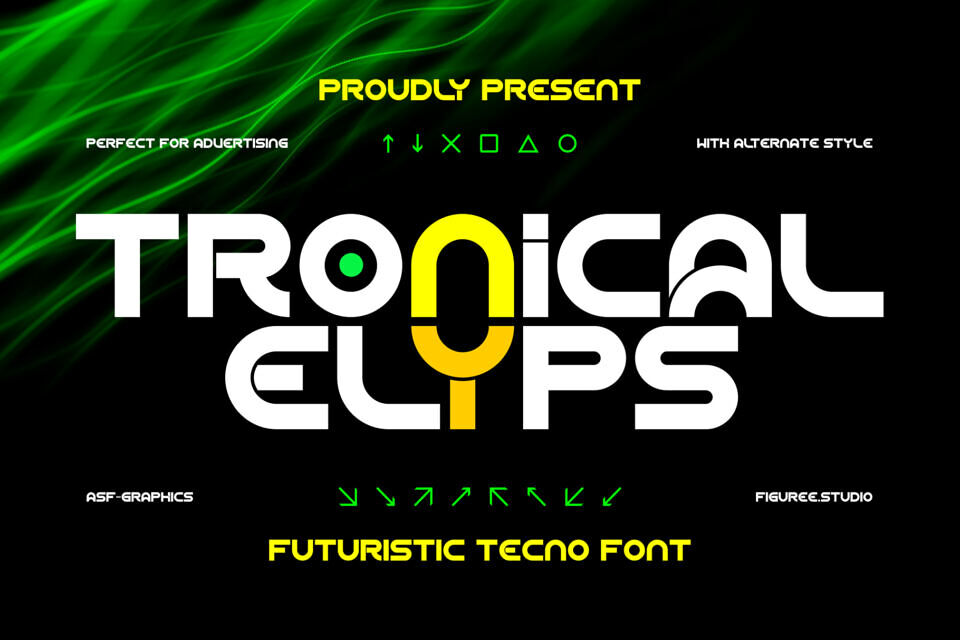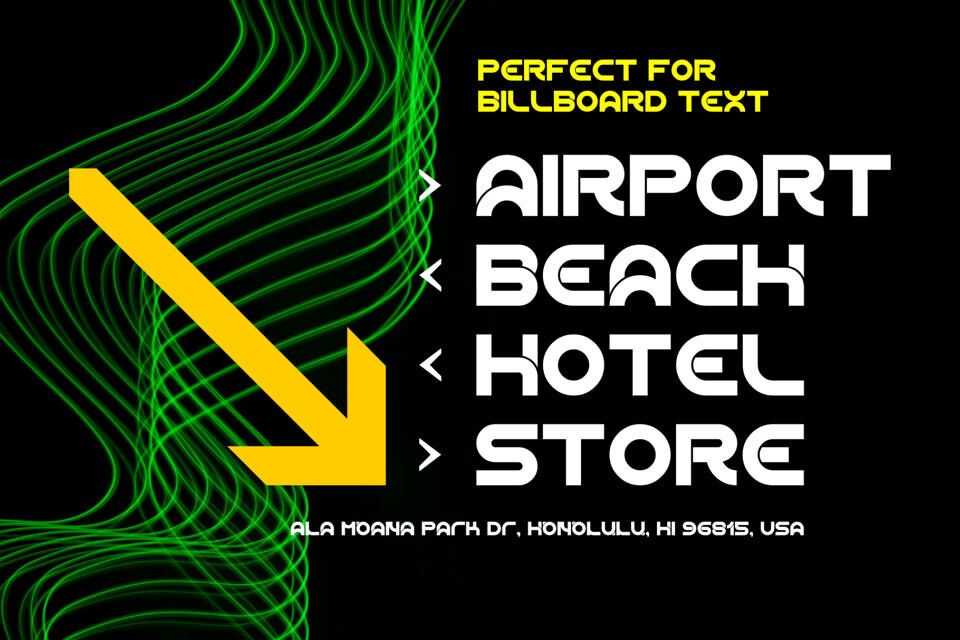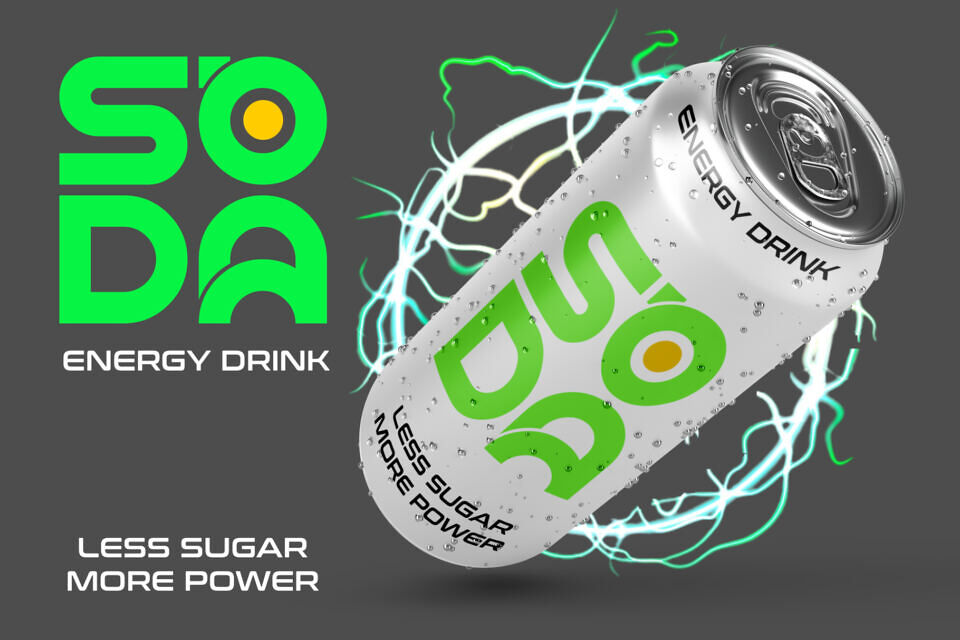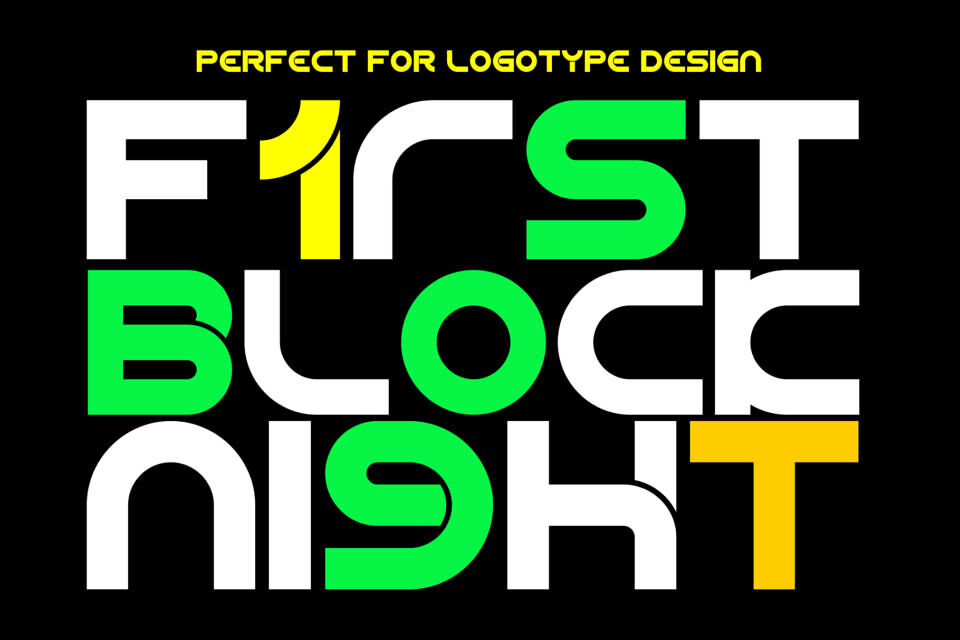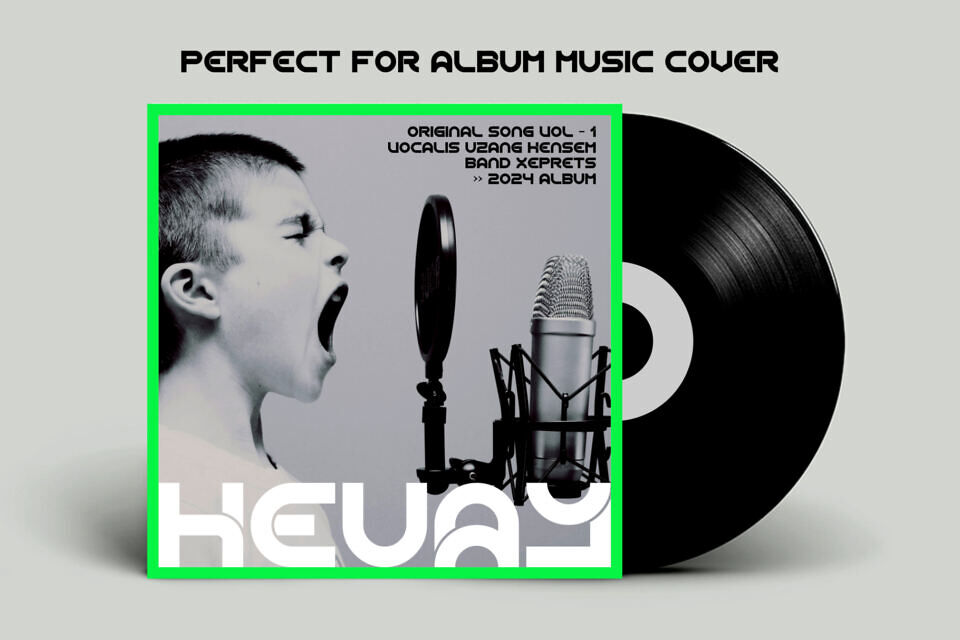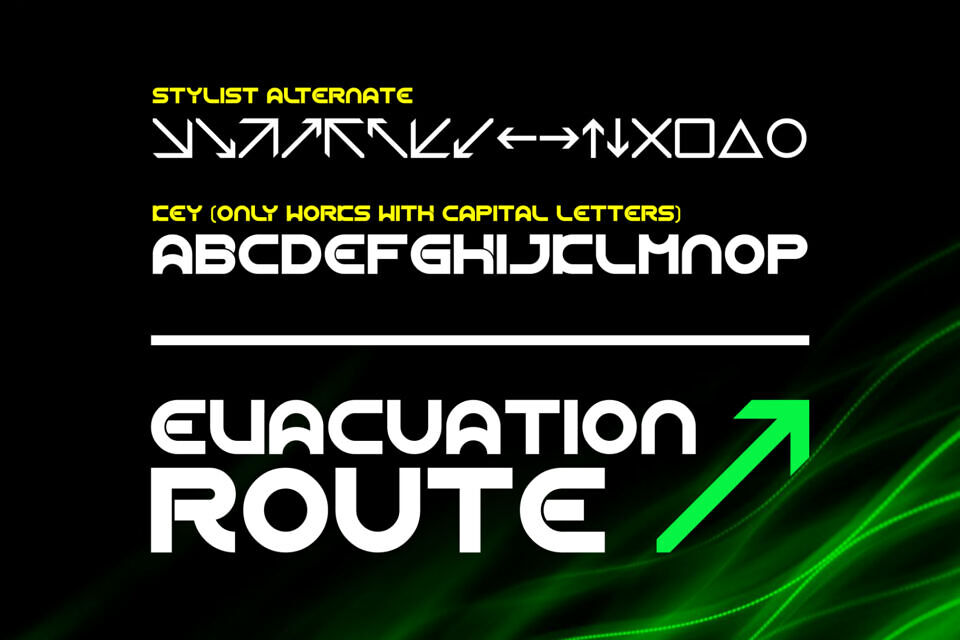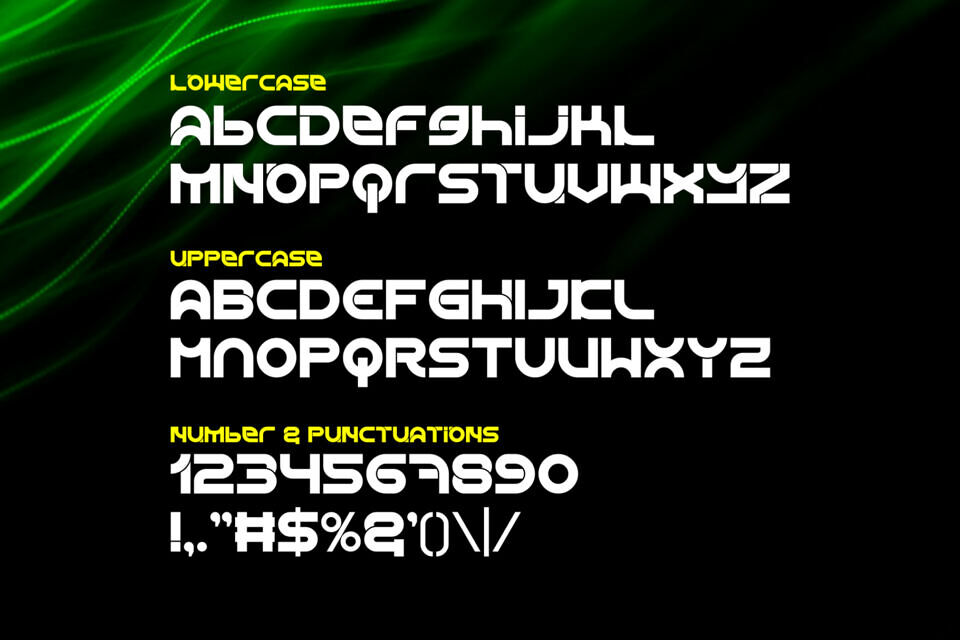
Tronical Elyps Font
Tronical Elyps is a futuristic techno font designed with geometric precision, dynamic curves, and sleek edges, making it ideal for logos, posters, branding, and digital interfaces. Perfect for tech startups, esports graphics, sci-fi visuals, or futuristic packaging, this modern typeface conveys innovation, speed, and progress.
Featuring uppercase, lowercase, and stylistic alternates, Tronical Elyps offers creative flexibility for bold typography. Its clean yet powerful design ensures every project reflects a cutting-edge aesthetic, setting a strong foundation for advanced digital and creative design.